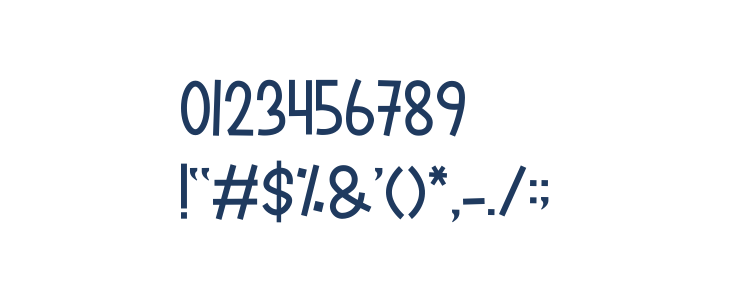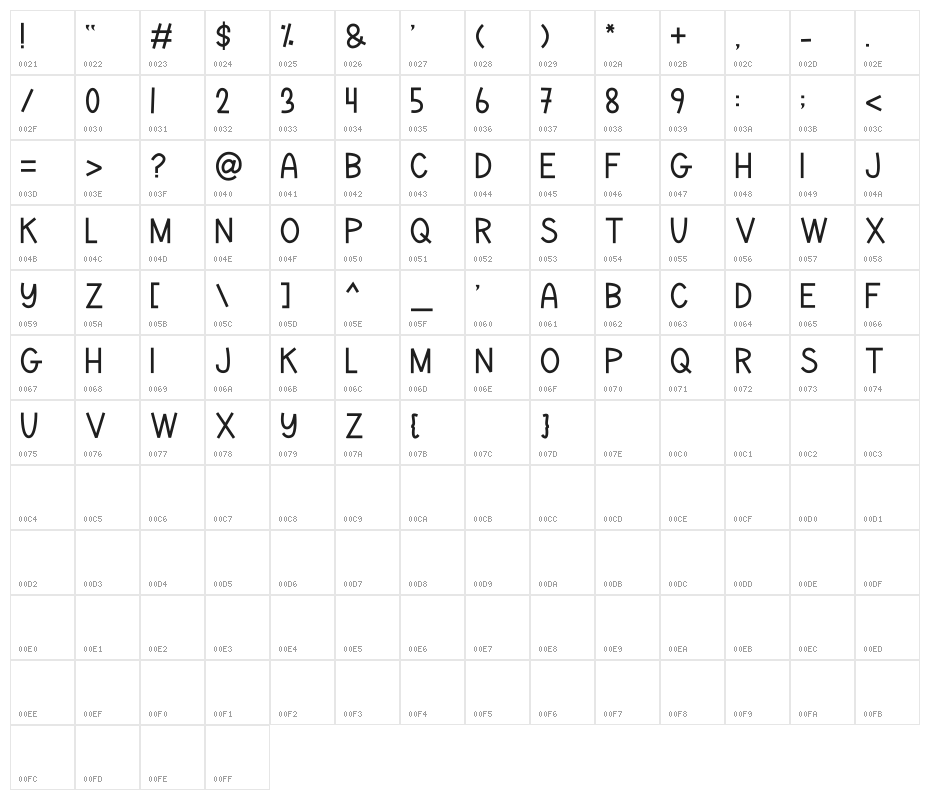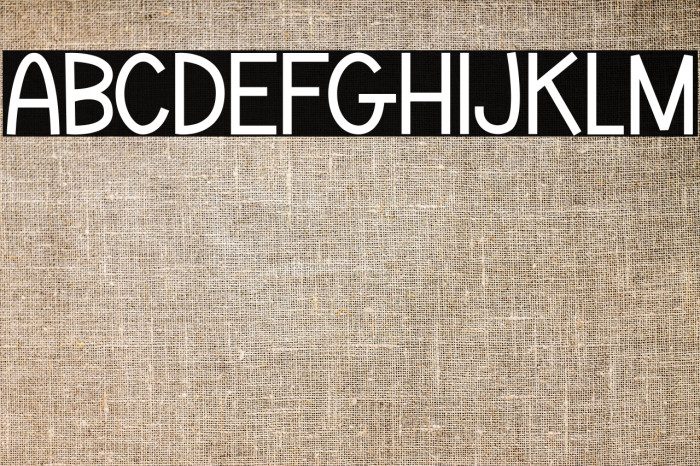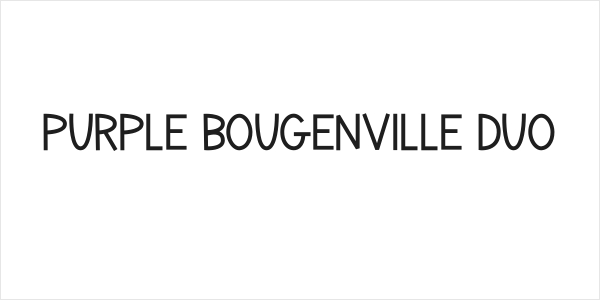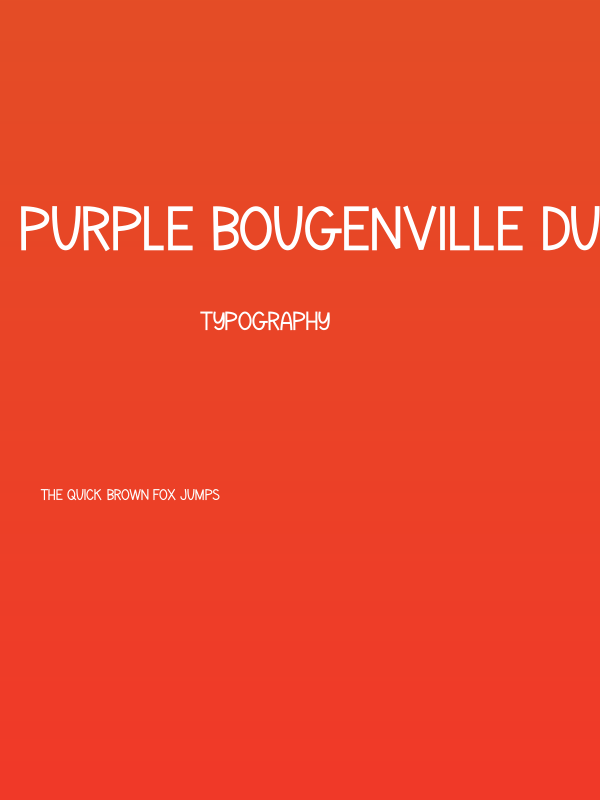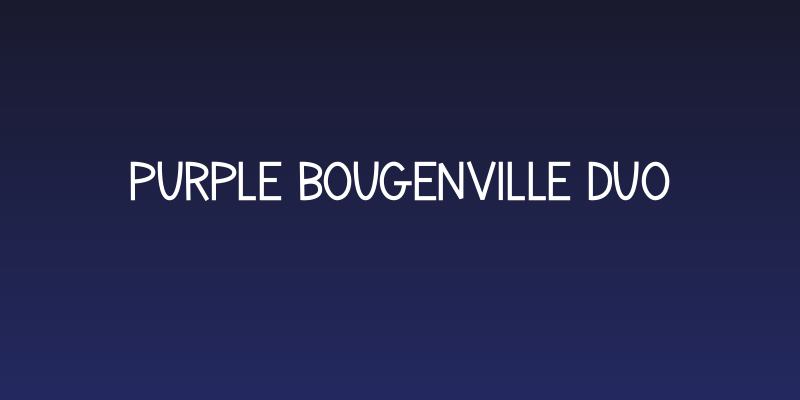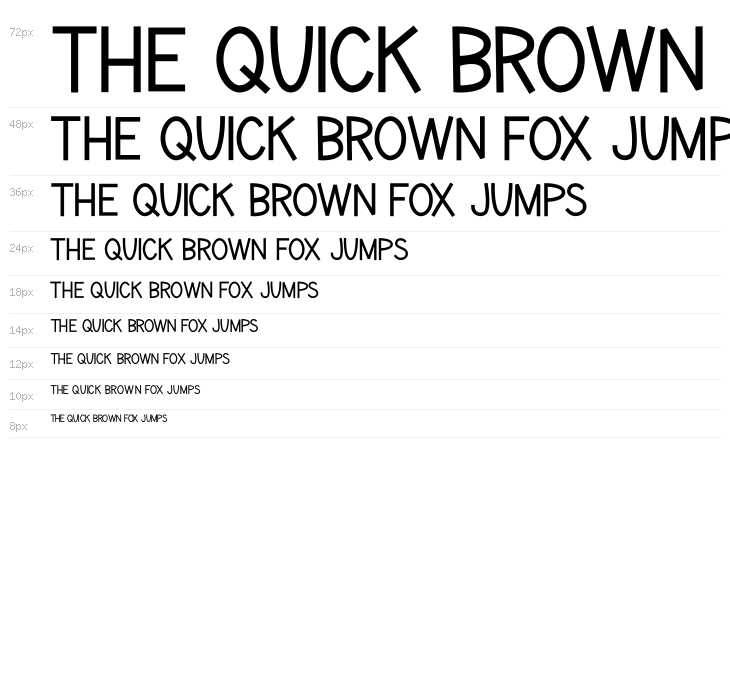
Purple Bougenville Duo Font
Purple Bougenville Duo Description
This font features a playful and modern design with a slightly rounded and geometric appearance. The characters are bold and have a consistent stroke width, giving them a strong presence. The uppercase letters are tall and slightly narrow, while the lowercase letters maintain a similar width, creating a harmonious balance. The numerals are clear and easy to read, with a uniform height that matches the uppercase letters. Special characters are designed with the same playful style, making them suitable for a variety of creative projects. The overall look is clean and approachable, making it versatile for both digital and print media.
| Proposed Projects | Ideal for children's books, playful branding, posters, and social media graphics. |